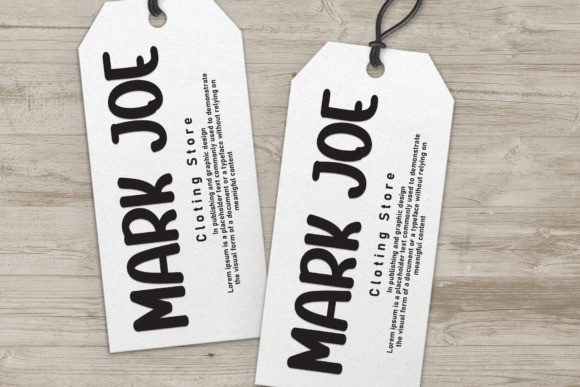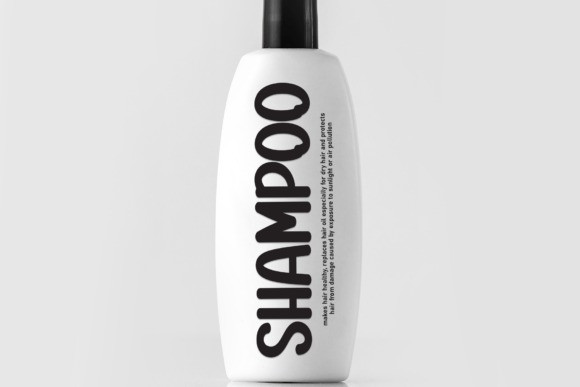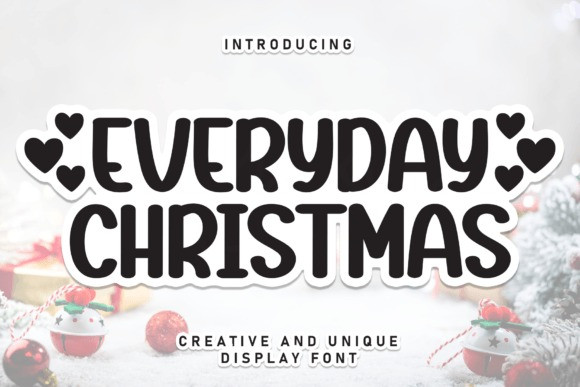
Everyday Christmas Font
Everyday Christmas Font is a sweet and friendly handwritten display font. Cute and fun, this font is ideal for writing wedding invitations, cards, or any other design that might need a fun touch!